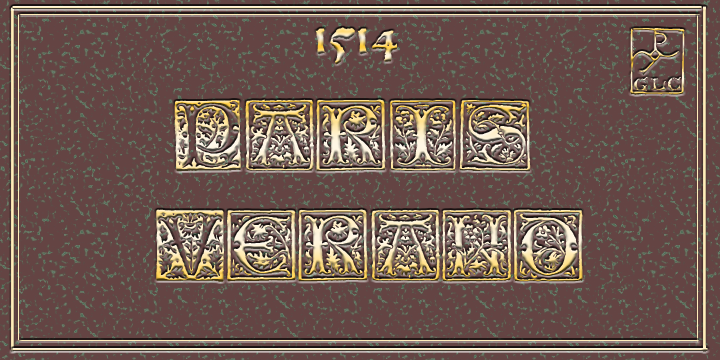
1514 Paris Verand Font is perfect for Renaissance festival materials, historical manuscript reproductions, French heritage publications, medieval academic texts, classical literature editions, museum exhibition displays, historical documentary titles, scholarly research papers, ancient manuscript studies, and any projects that need authentic typography with French Renaissance character and historical printing authenticity.
What makes 1514 Paris Verand Font exciting is its authentic recreation of early 16th-century Parisian typography that captures the revolutionary moment when Renaissance humanism transformed French printing with letterforms that bridge medieval manuscript traditions and modern typographic principles. This historically significant typeface features period-accurate characteristics with Renaissance craftsmanship that evokes the scholarly workshops of early Paris printers who brought classical learning to the French court and established typography traditions that influenced European printing for centuries. The font's Renaissance character makes it perfect for academic institutions and cultural organizations seeking to honor the profound impact of French Renaissance printing on European intellectual development.
1514 Paris Verand Font family includes Renaissance-era style variations featuring regular, bold, italic, and ornamental versions. The font family also contains period-appropriate decorative elements, French Renaissance borders, classical symbols, and scholarly ornaments that enhance the historical atmosphere. Additional options include aged variants that simulate centuries of careful preservation in ancient libraries, along with special character sets designed for different Renaissance moods and academic applications.
Journey to Renaissance Paris with 1514 Paris Verand Font Free Download and transport your scholarly projects to the golden age of French humanism with typography that honors the revolutionary printers who brought classical learning to Renaissance Europe. This historically authentic typeface delivers Renaissance-quality performance across all academic applications, ensuring your message carries the scholarly authority and cultural significance that French Renaissance printing represents. Download 1514 Paris Verand Font today and inscribe your designs in the noble tradition of Parisian printing masters, creating scholarly connections with audiences who appreciate the profound historical significance of Renaissance typography and the revolutionary impact of French printing on European intellectual culture.